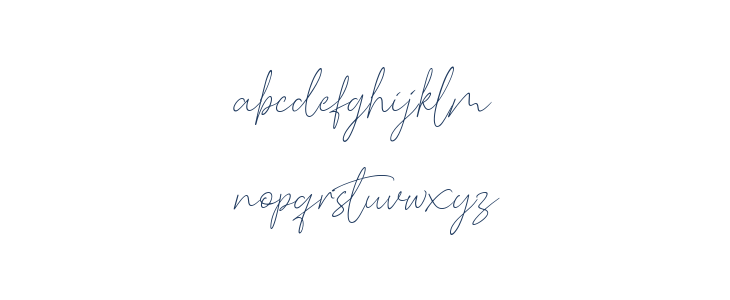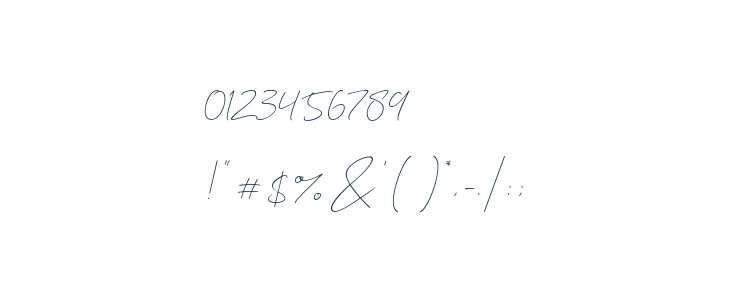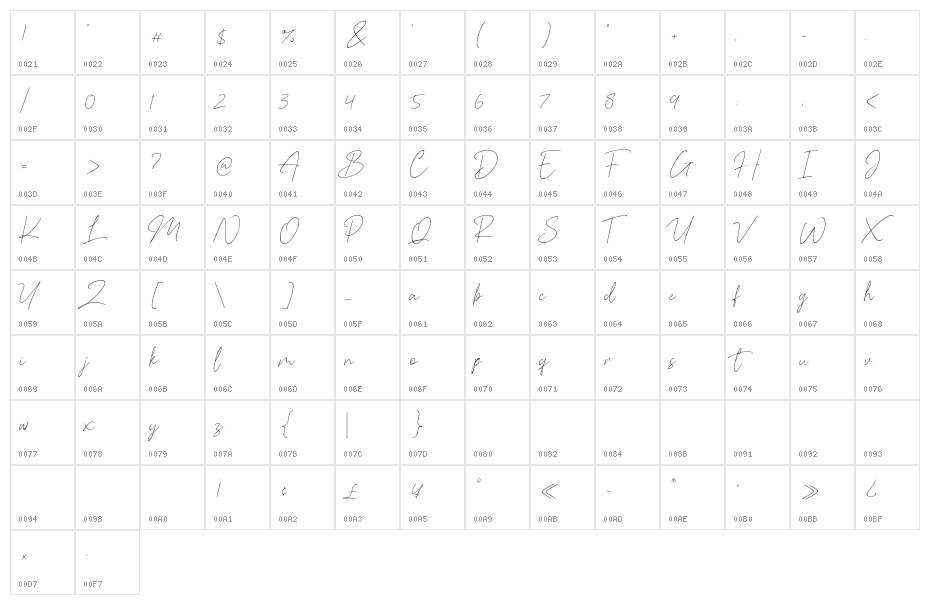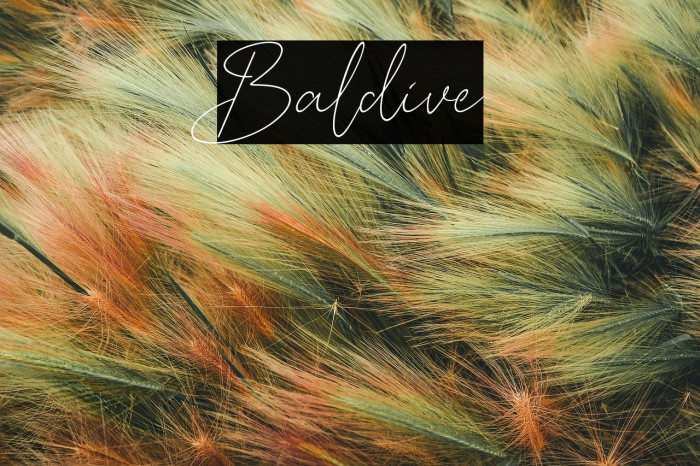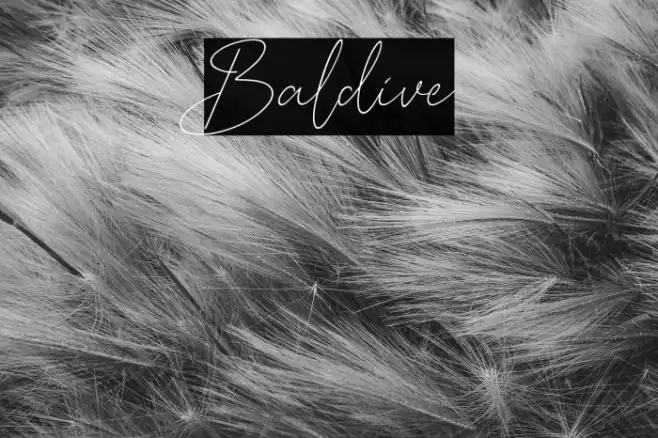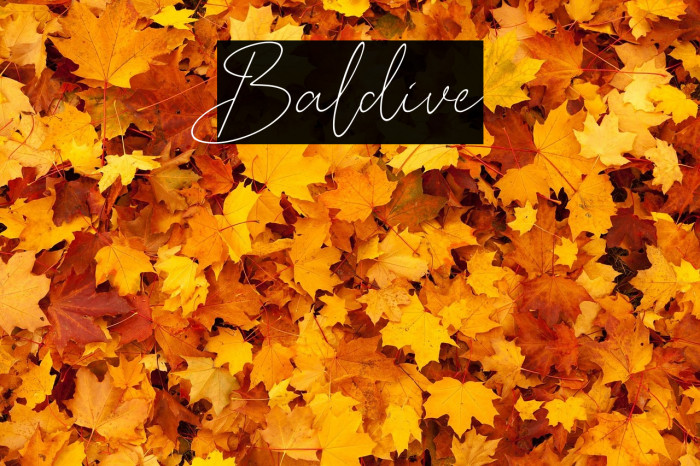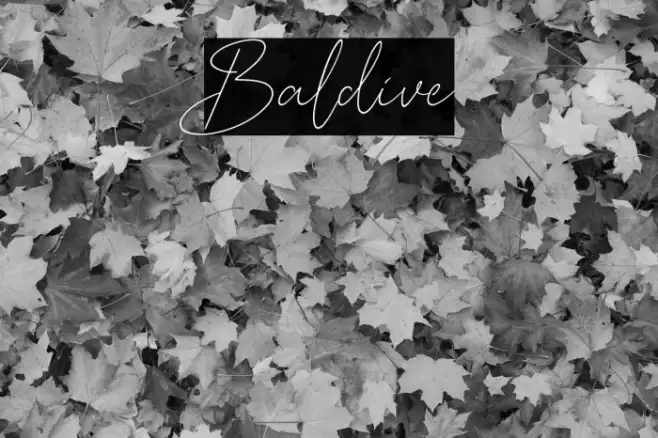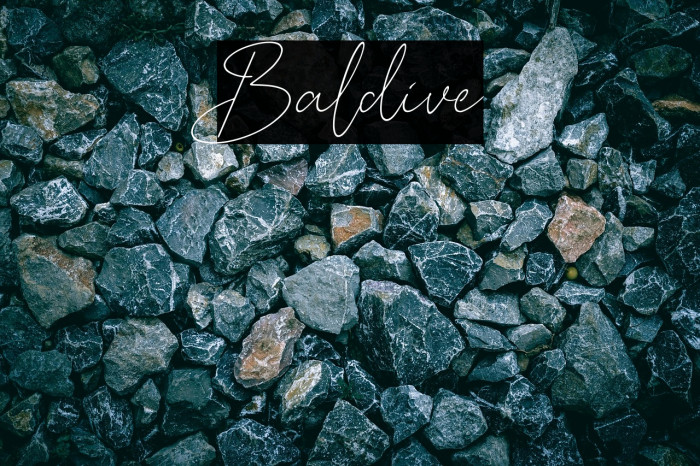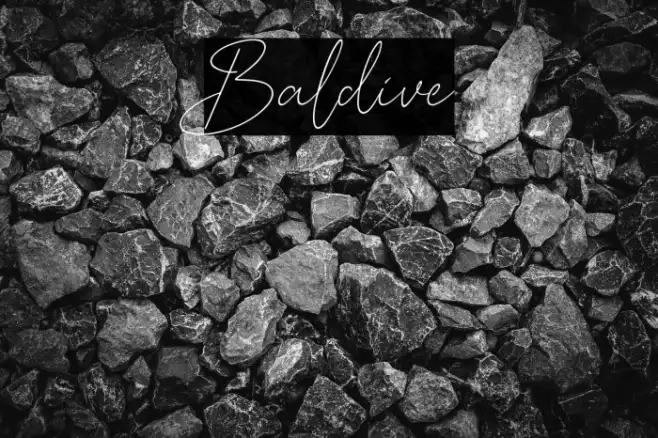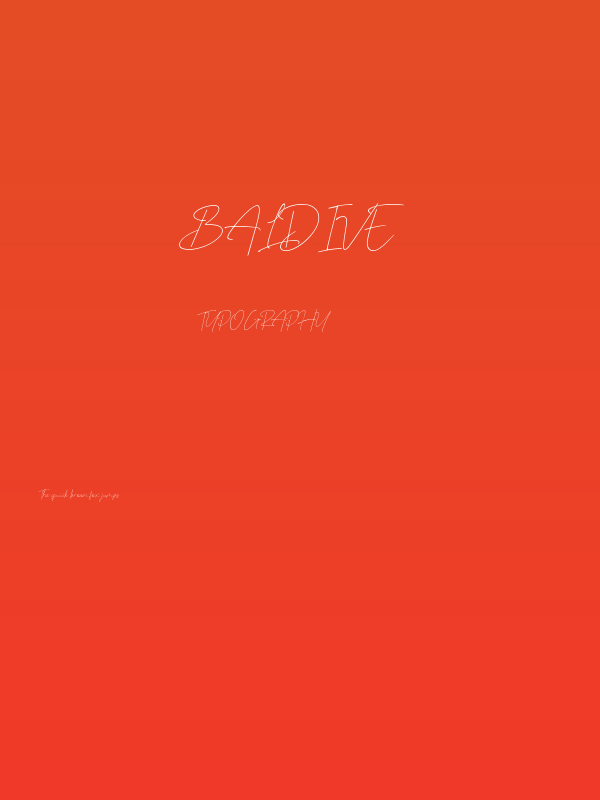
Baldive Font
This font features an elegant and flowing script style, characterized by its smooth, continuous strokes and a handwritten appearance. The letters are connected, creating a seamless and fluid look that mimics natural handwriting. The uppercase letters are slightly more elaborate, with graceful loops and curves, while the lowercase letters maintain a consistent flow. The numerals and special characters follow the same stylistic approach, ensuring uniformity across all glyphs. This font exudes a sense of sophistication and charm, making it ideal for projects that require a personal touch.
A graceful and flowing script font with a handwritten style.
- Proposed Projects: Ideal for wedding invitations, greeting cards, personal branding, and elegant stationery.
- Overall Style: Elegant
- Use Case: Logos, Invitations, Personal Branding